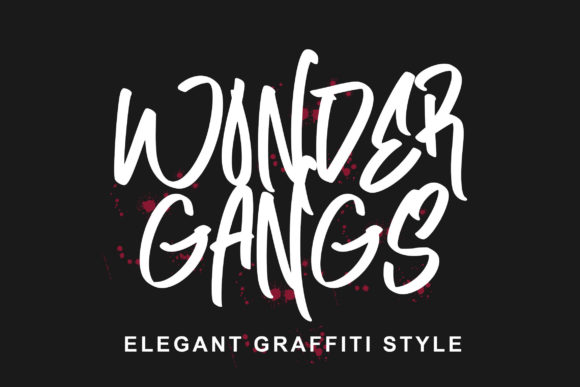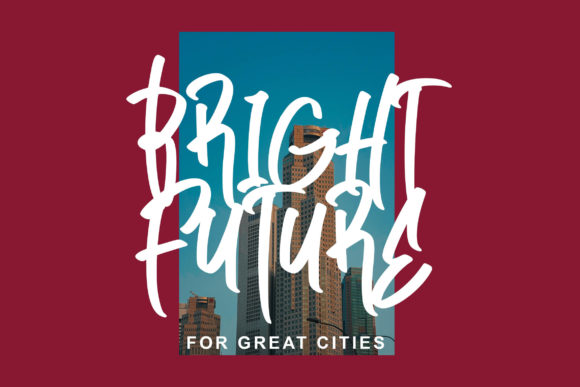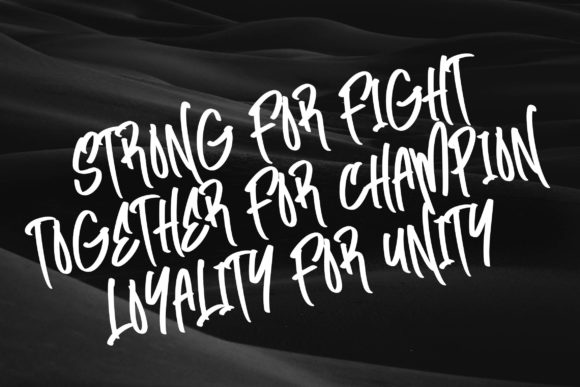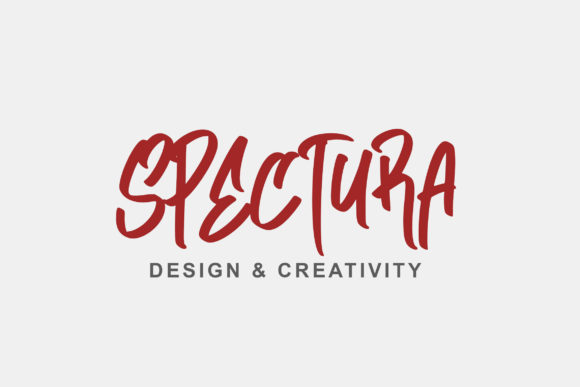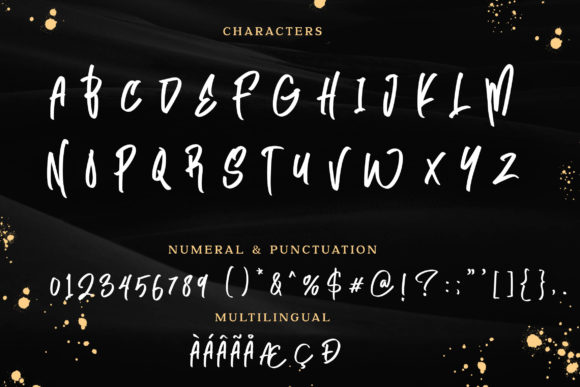
Wonder Gangs Font
About Wonder Gangs Font
Wonder Gangs is a cool, graffiti styled handwritten font. This font is suitable for designs such as t-shirts, sportswear, logos, advertisements, clothing, and more.